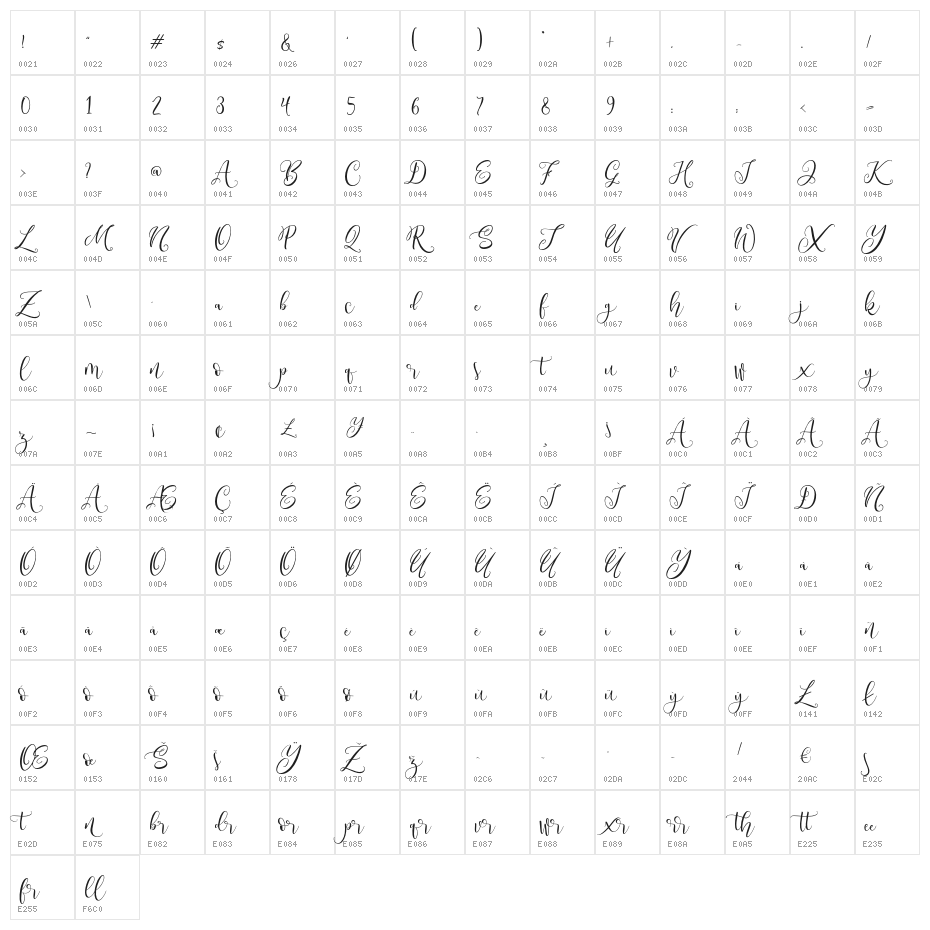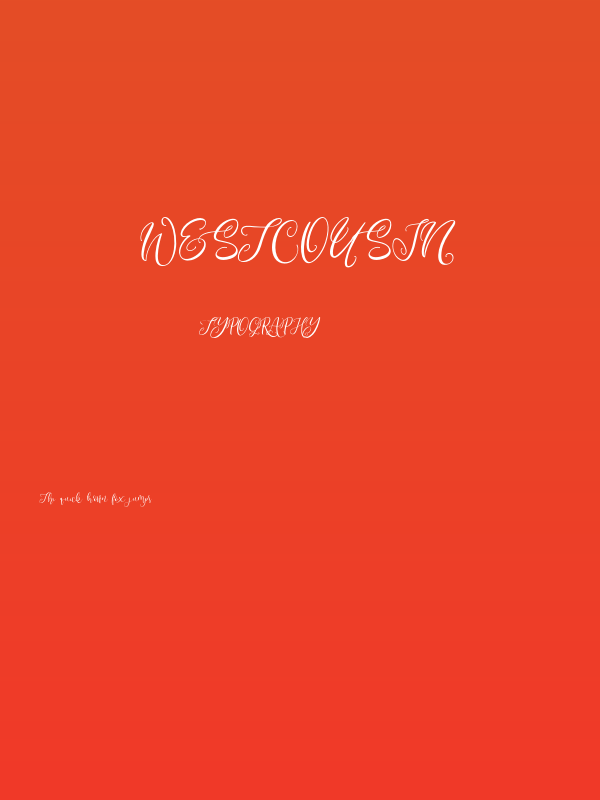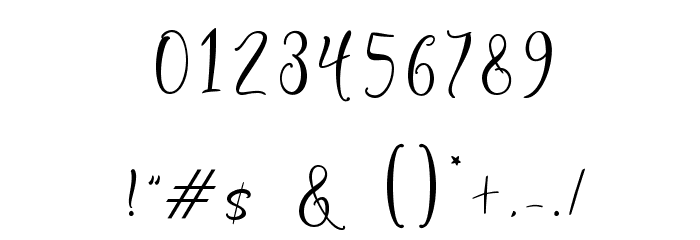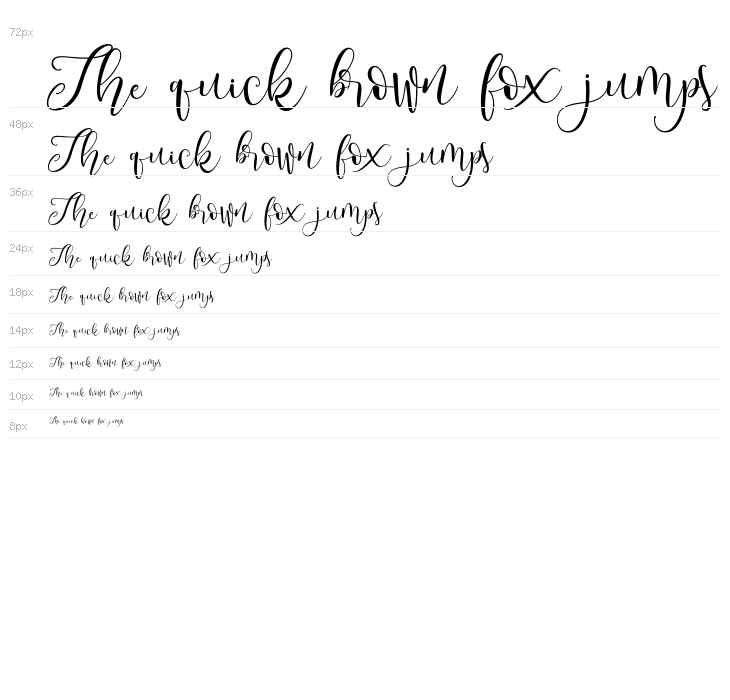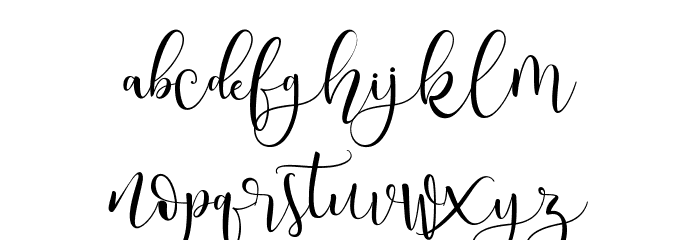
WestCousin Font
WestCousin Description
This font exudes elegance and sophistication with its flowing, cursive script style. The uppercase letters are adorned with intricate swirls and loops, giving them a decorative flair. The lowercase letters maintain a consistent cursive form, with smooth transitions and a graceful appearance. The numerals are distinct yet harmonize well with the overall script style. Special characters are thoughtfully designed, maintaining the font's elegant aesthetic. This font is perfect for projects that require a touch of class and refinement.
| Use Case | Logos, Invitations, Decorative text |
| Proposed Projects | Ideal for wedding invitations, elegant branding, greeting cards, and upscale packaging. |